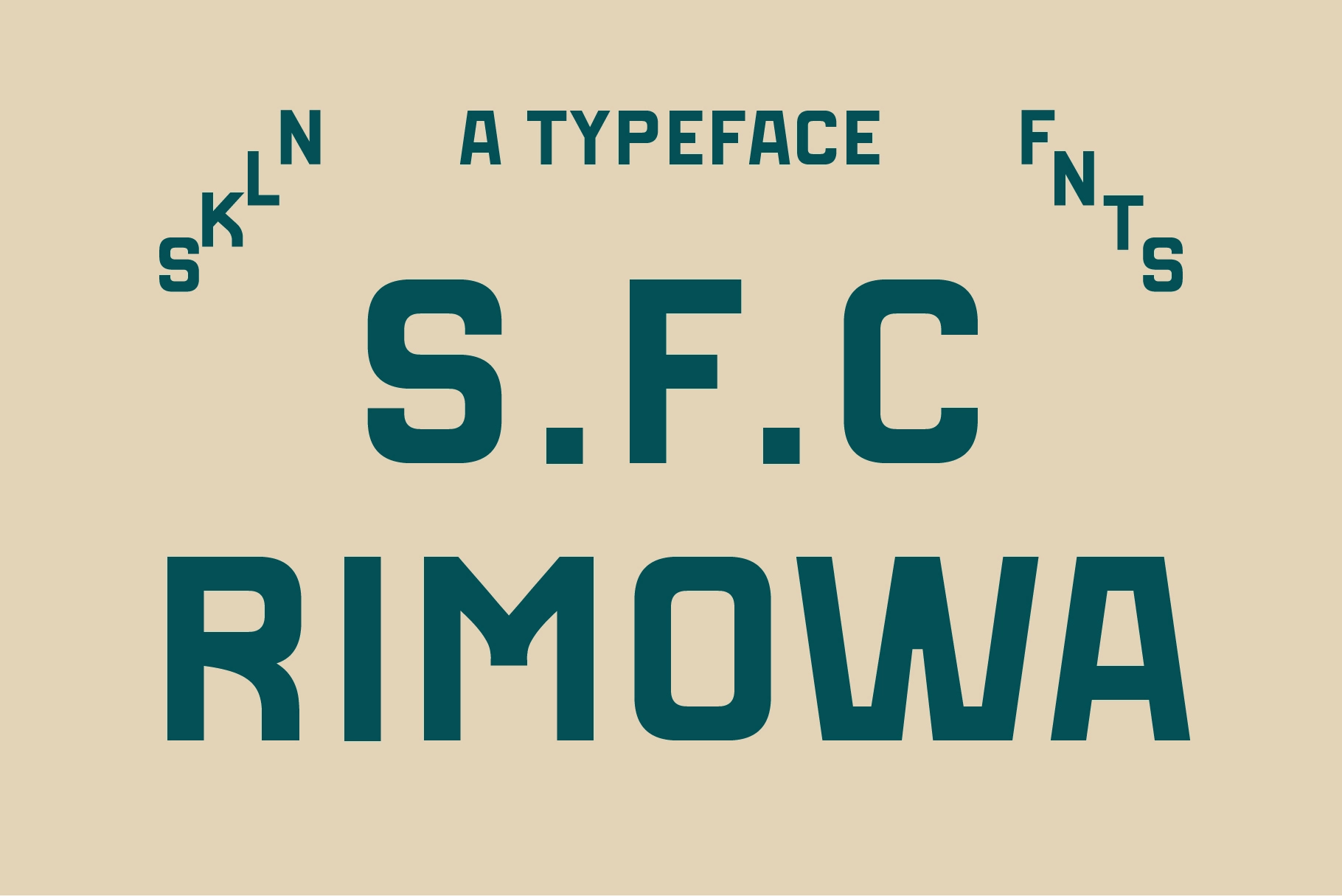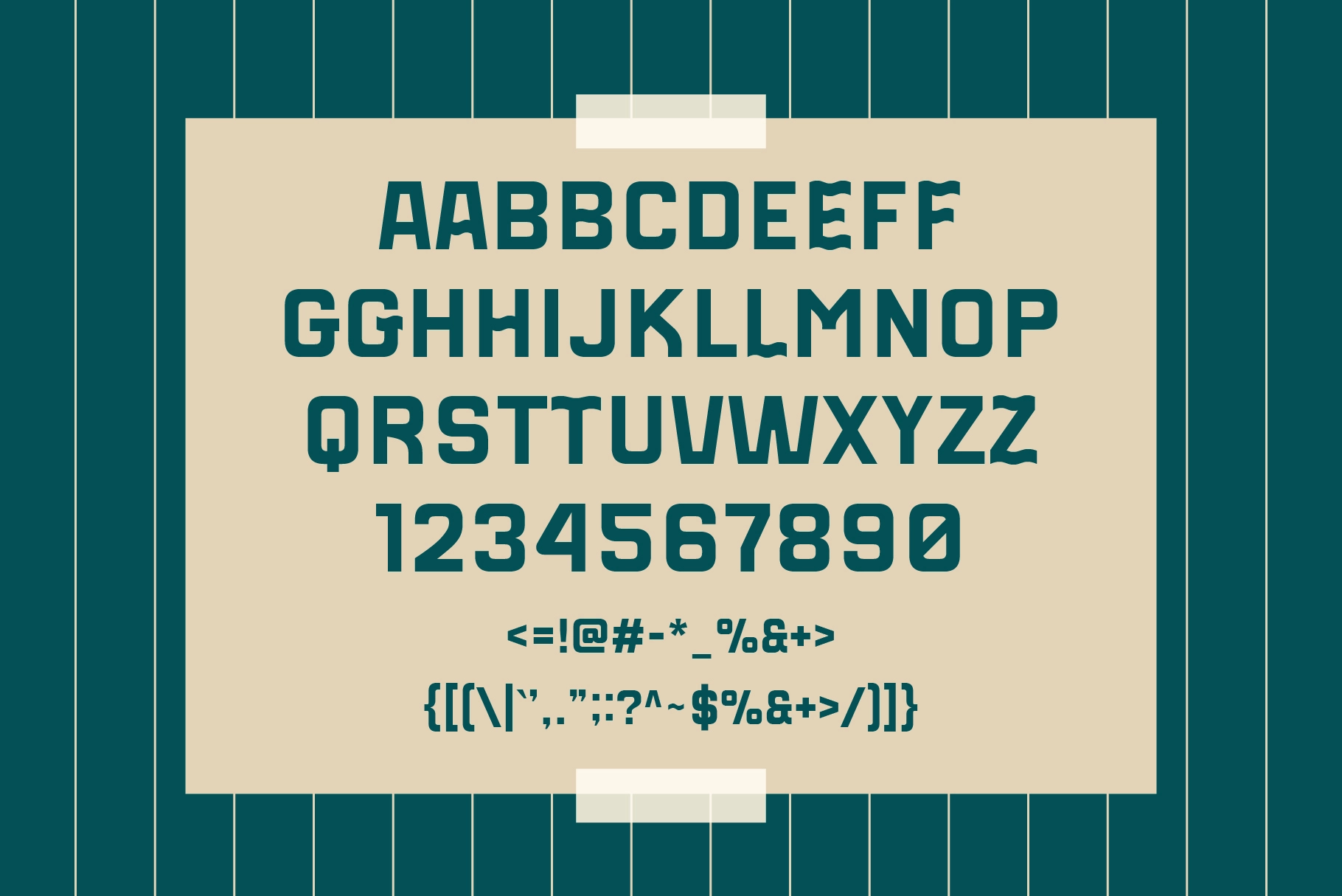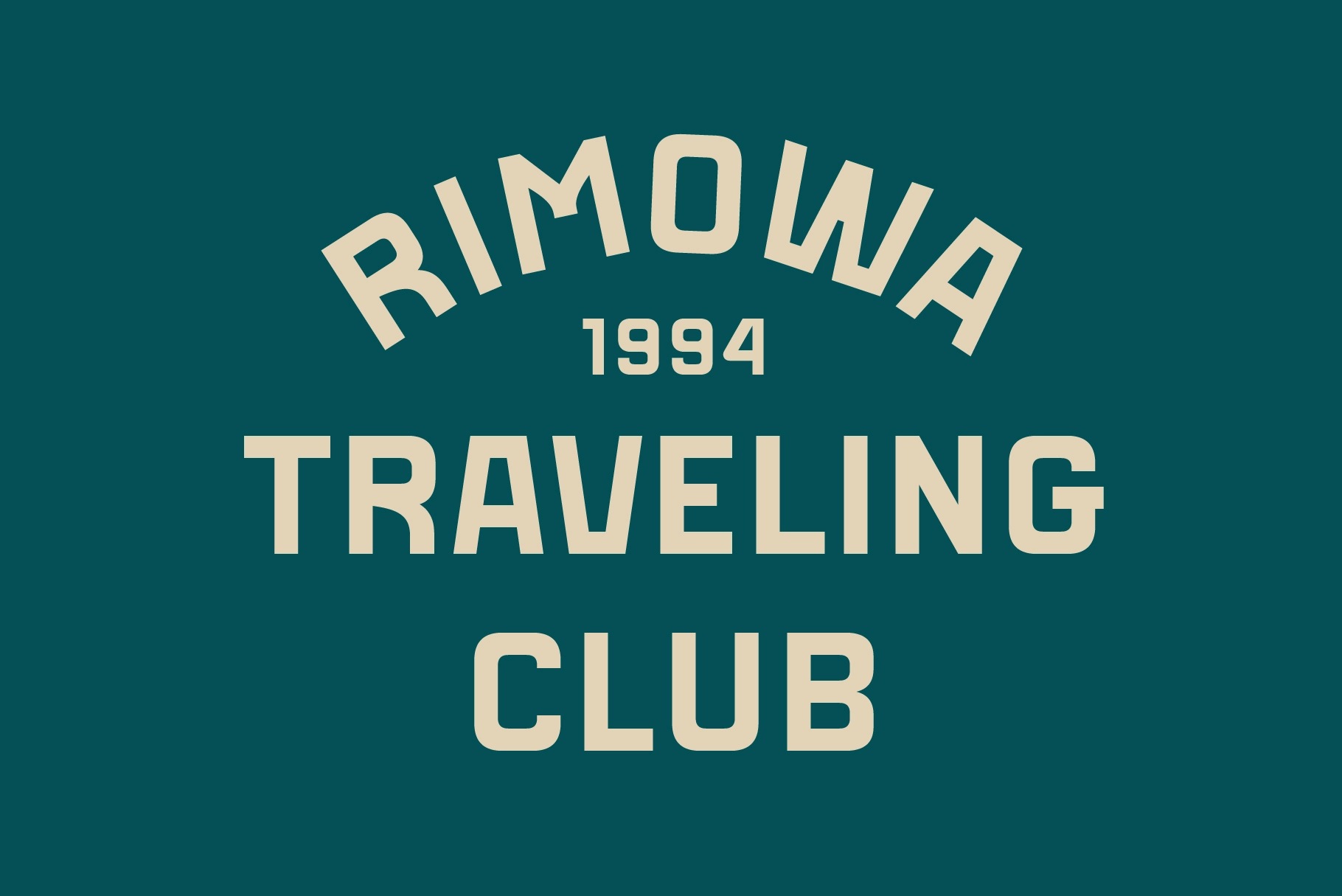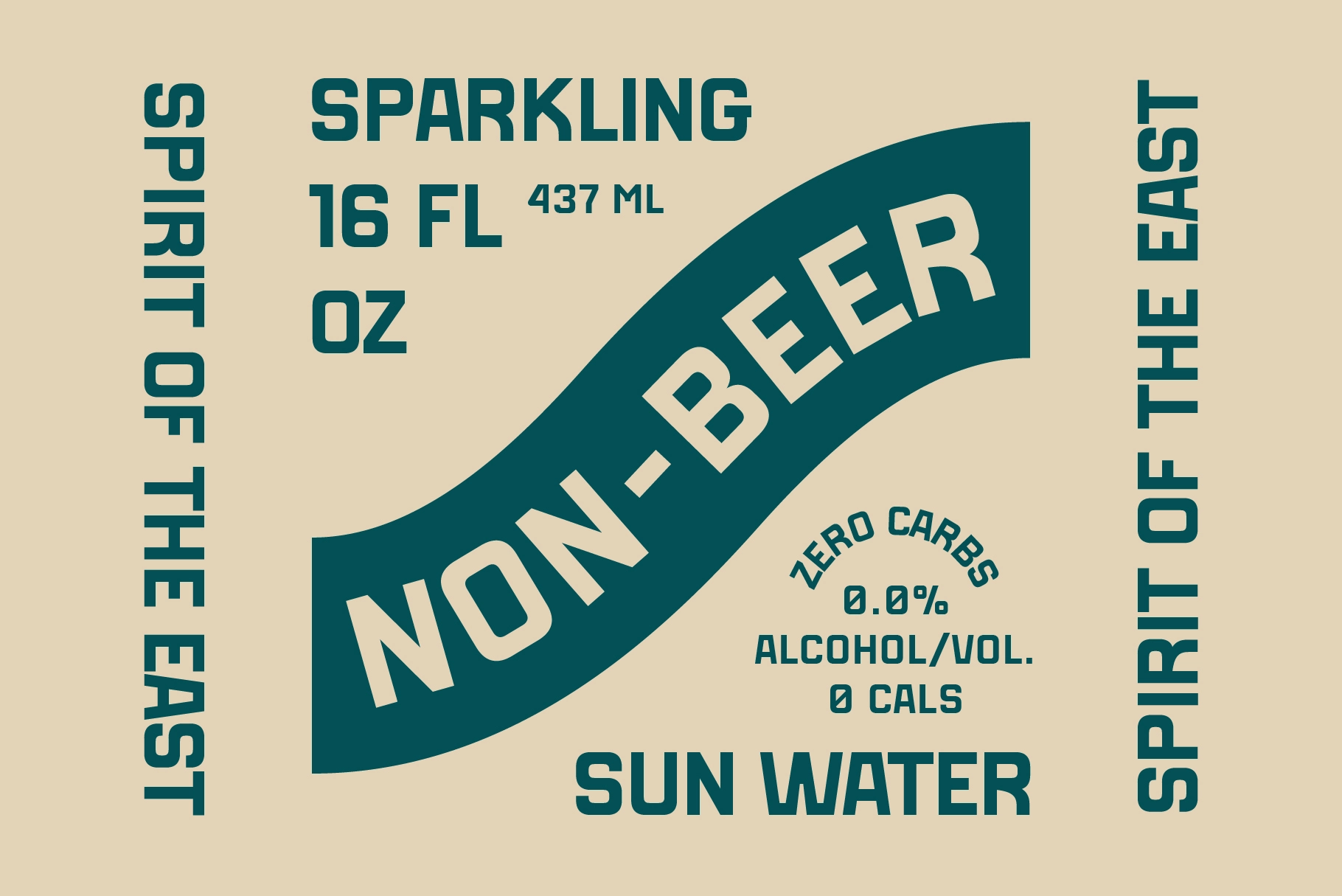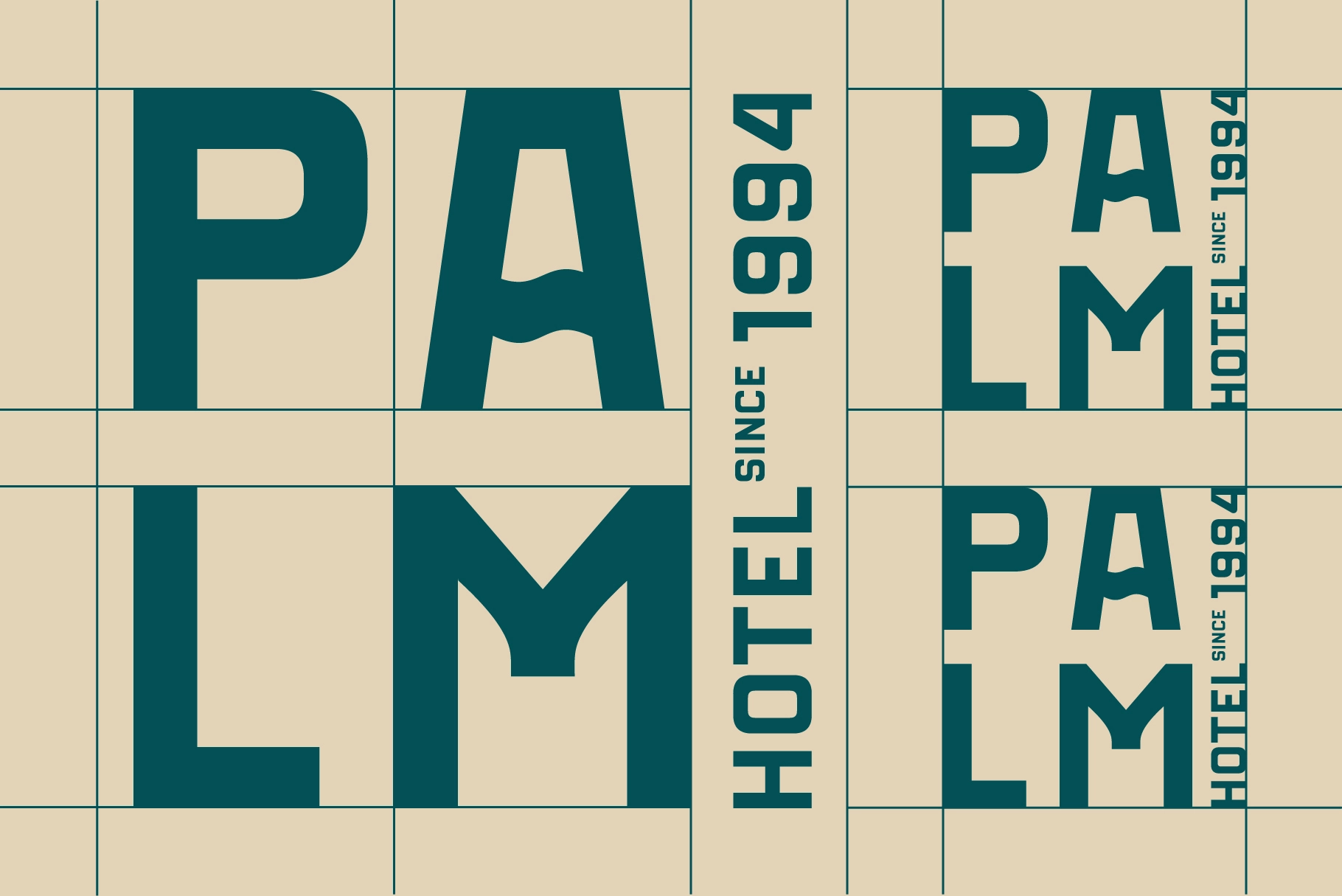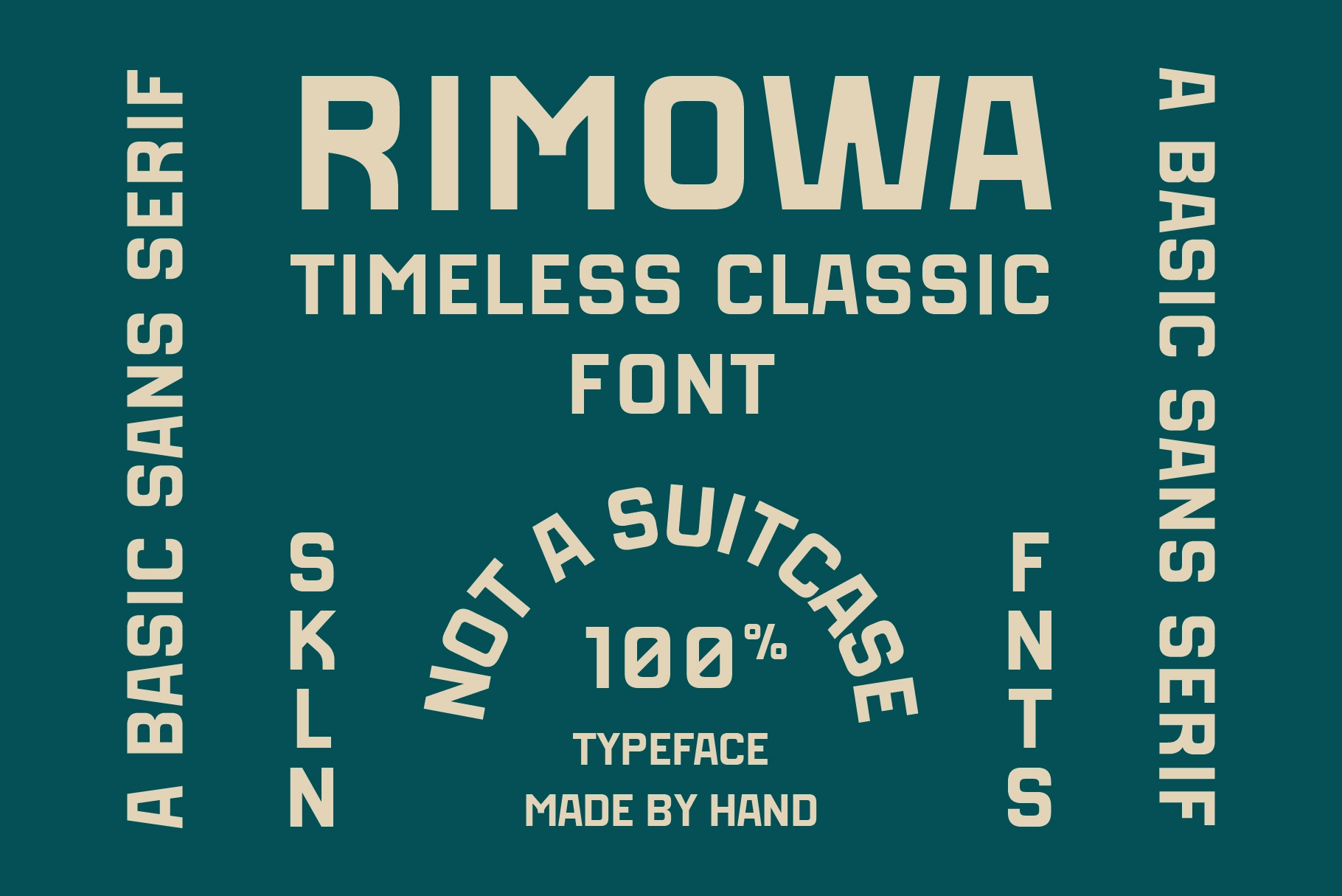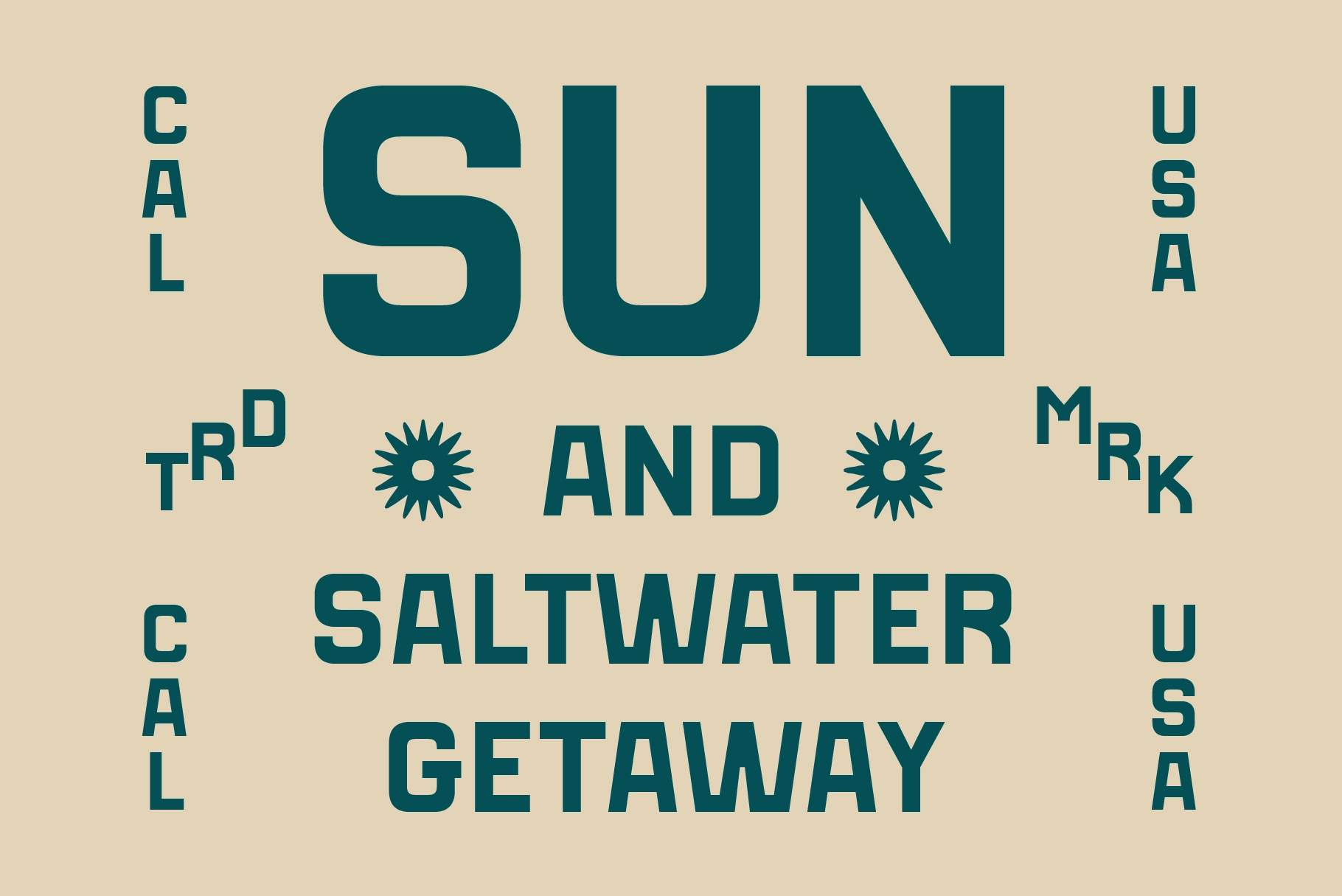
SFC Rimowa
S.F.C Rimowa is a bold modern sans-serif display typeface inspired by industrial labeling, military stencils, and classic transport typography. Its solid geometry, squared curves, and precision-cut structure deliver a clean, confident, and utilitarian presence. Designed for creators who want a strong, contemporary, and functional aesthetic, S.F.C Rimowa brings a refined blend of industrial clarity and modern discipline, perfect for logos, activewear, editorial layouts, sports branding, packaging systems, and any project that demands sharp readability with a professional edge.
Ideal Applications for S.F.C Rimowa Typeface:
• Modern sports & activewear branding
• Industrial, transport, and utility design
• Editorial layouts & bold title compositions
• Minimalist apparel & merchandise graphics
• Tech, aviation, and performance-driven identity
• Packaging, labeling, and signage systems
• All Caps Typeface
• Clean Geometric Sans Letterforms
• Basic Numerals & Punctuation